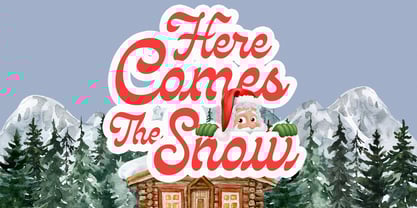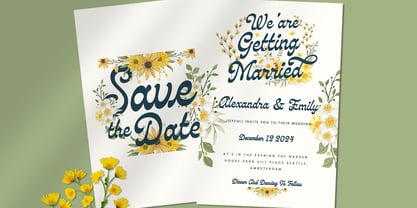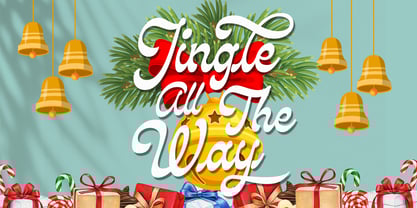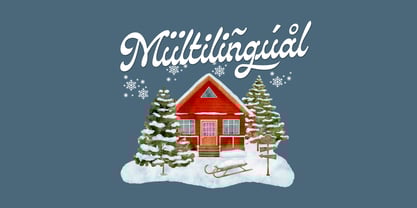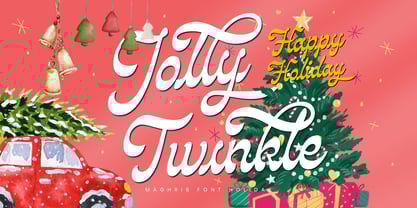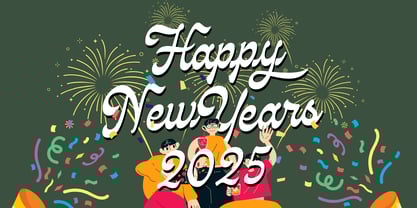
Jolly
The Jolly Font Family was designed by Rizky Setyaludin and published by Maghrib Type. Jolly contains 1 styles. More about this family
Jolly is a beautiful and charming handwritten font designed to bring elegance and softness to any design. With its graceful strokes and smooth curves, this font is perfect for wedding invitations, Christmas and Valentine’s Day cards, posters, product packaging, logos, and many other creative projects.
This font strikes the perfect balance between classic beauty and modern sophistication. Each letter flows seamlessly, creating a natural and refined look. Featuring alternates and ligatures, Jolly offers versatile letter variations for a unique and personalized touch.
With its exquisite and delicate appeal, Jolly will add a luxurious touch to any project. Let its elegance enhance your designs and make them truly unforgettable!